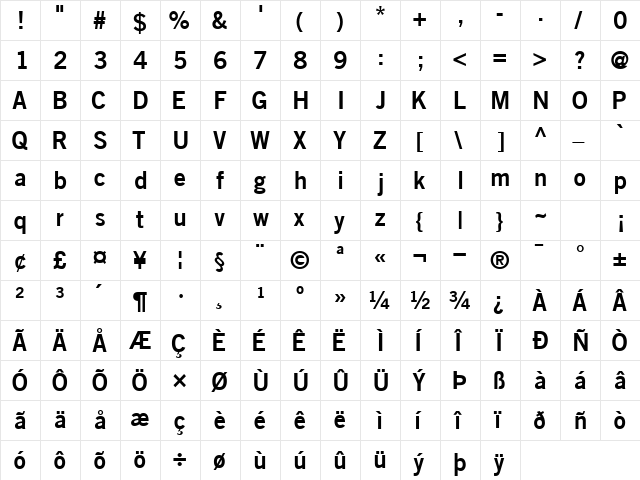
CommerceSSK SemiBold Font Preview
CommerceSSK SemiBold
CommerceSSK SemiBold Font Details
| Style | SemiBold |
Design Context for CommerceSSK Typeface
CommerceSSK is a composed and adaptable typeface that performs quietly and consistently across a wide range of design contexts. The heavy weight commands attention and anchors typographic hierarchies.